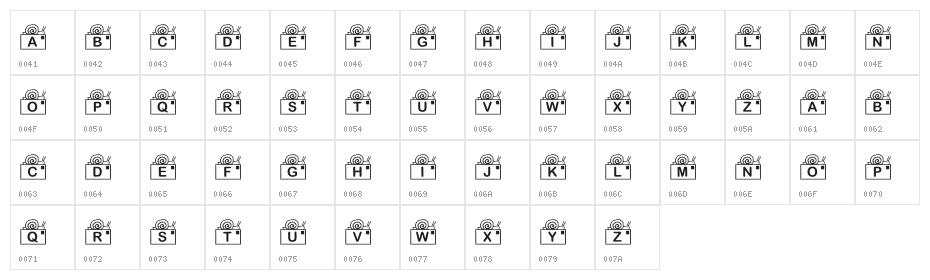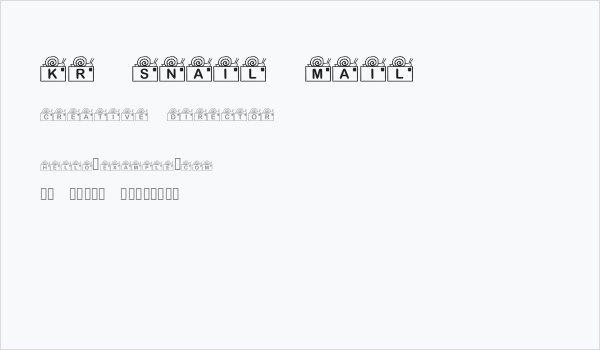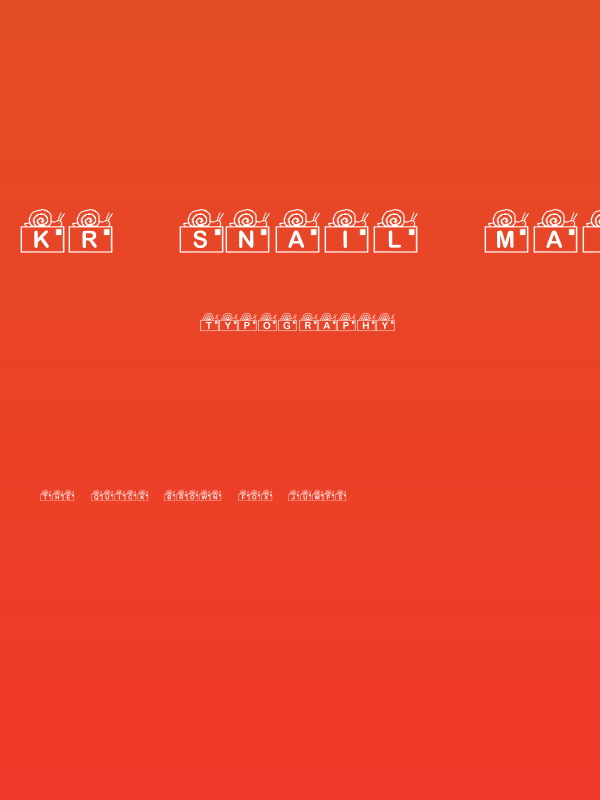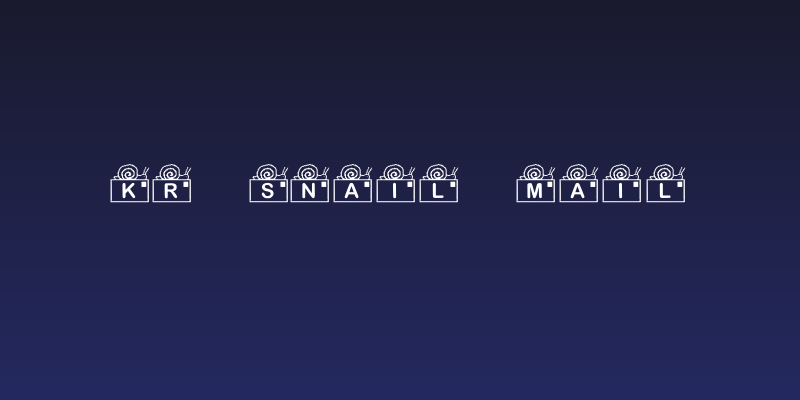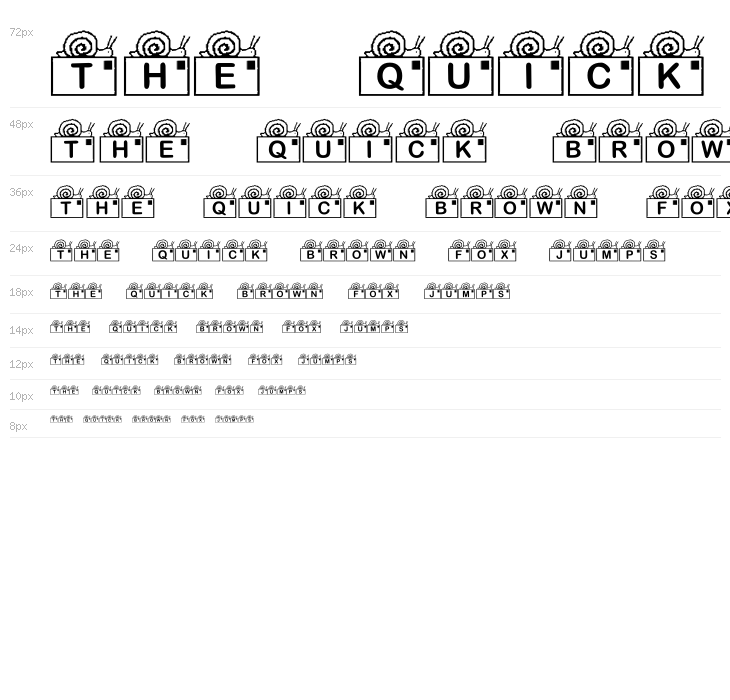
KR Snail Mail Font
KR Snail Mail Description
This playful and whimsical font features uppercase letters encased in square boxes, each adorned with a charming snail illustration on top. The design is bold and eye-catching, making it ideal for projects that require a fun and lighthearted touch. The letters are uniformly spaced within their boxes, creating a consistent and structured appearance. The snails add a unique decorative element, making this font particularly suitable for children's materials, greeting cards, or any creative project that benefits from a touch of humor and creativity.
| Use Case | Headlines, Logos, Decorative text |
| Proposed Projects | Ideal for children's books, playful greeting cards, educational materials, and creative branding projects. |